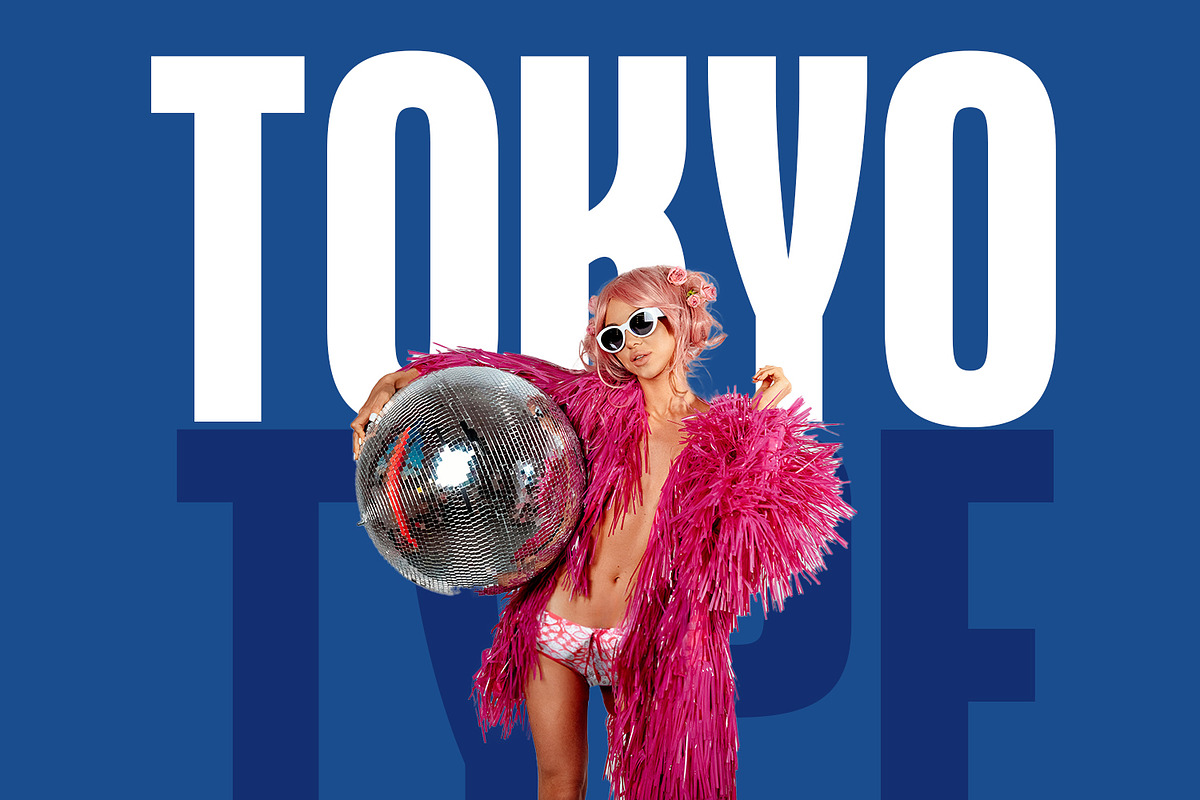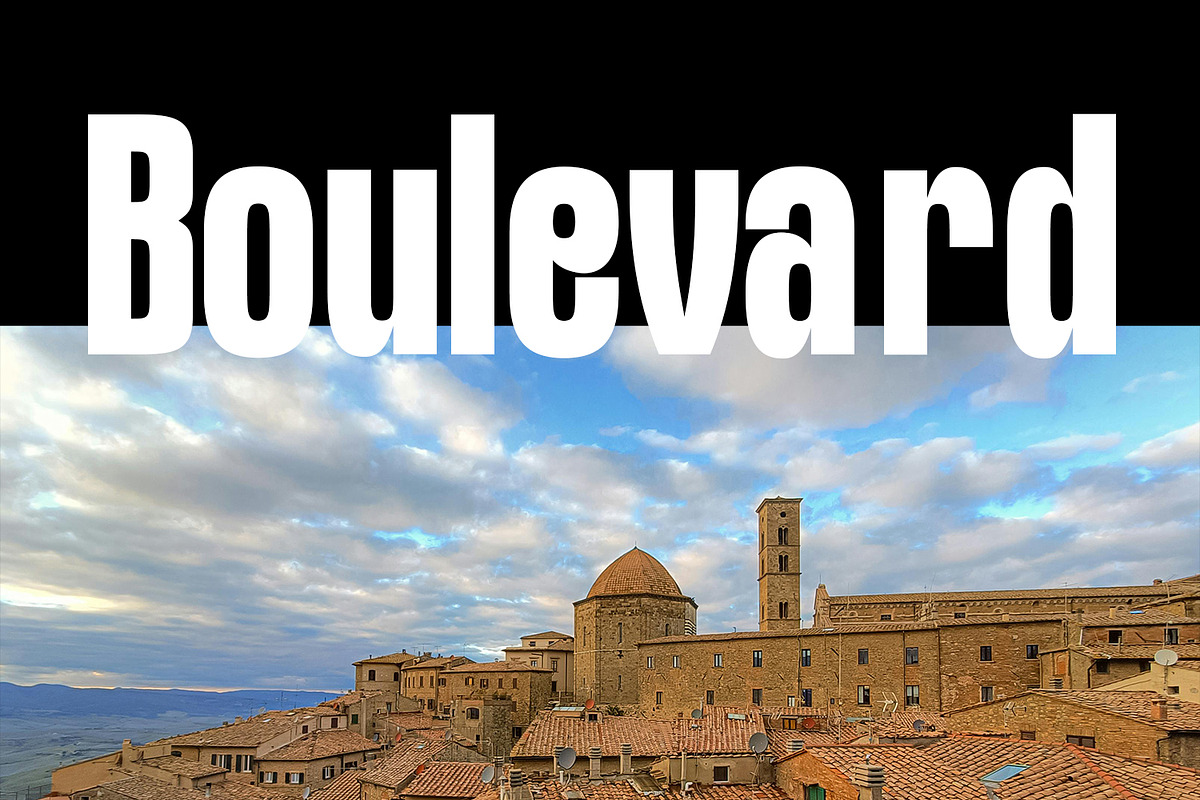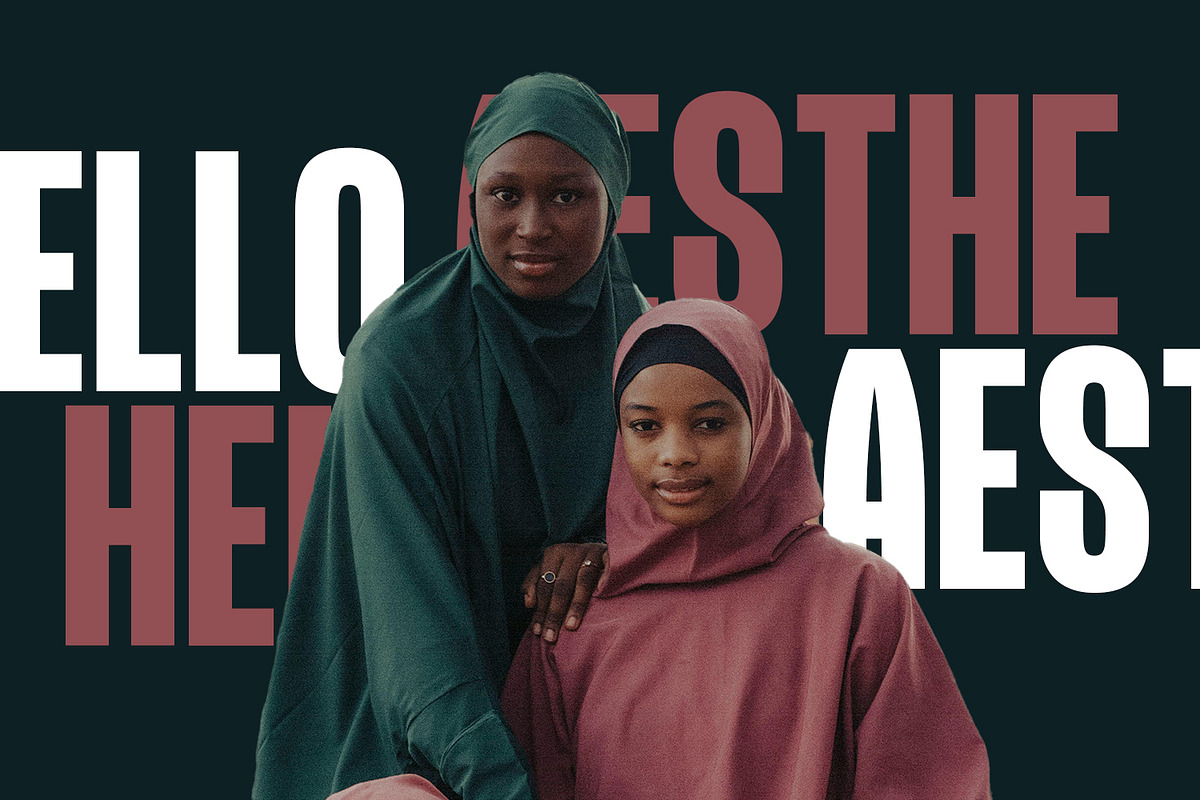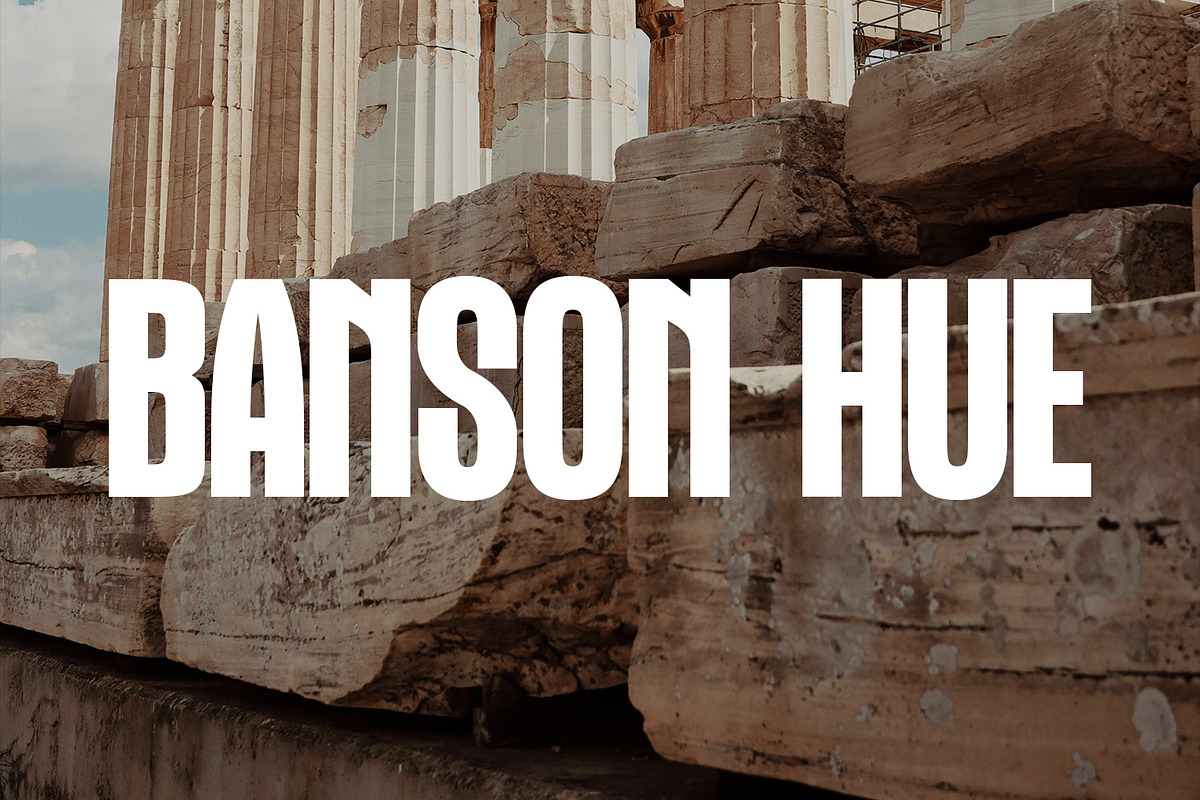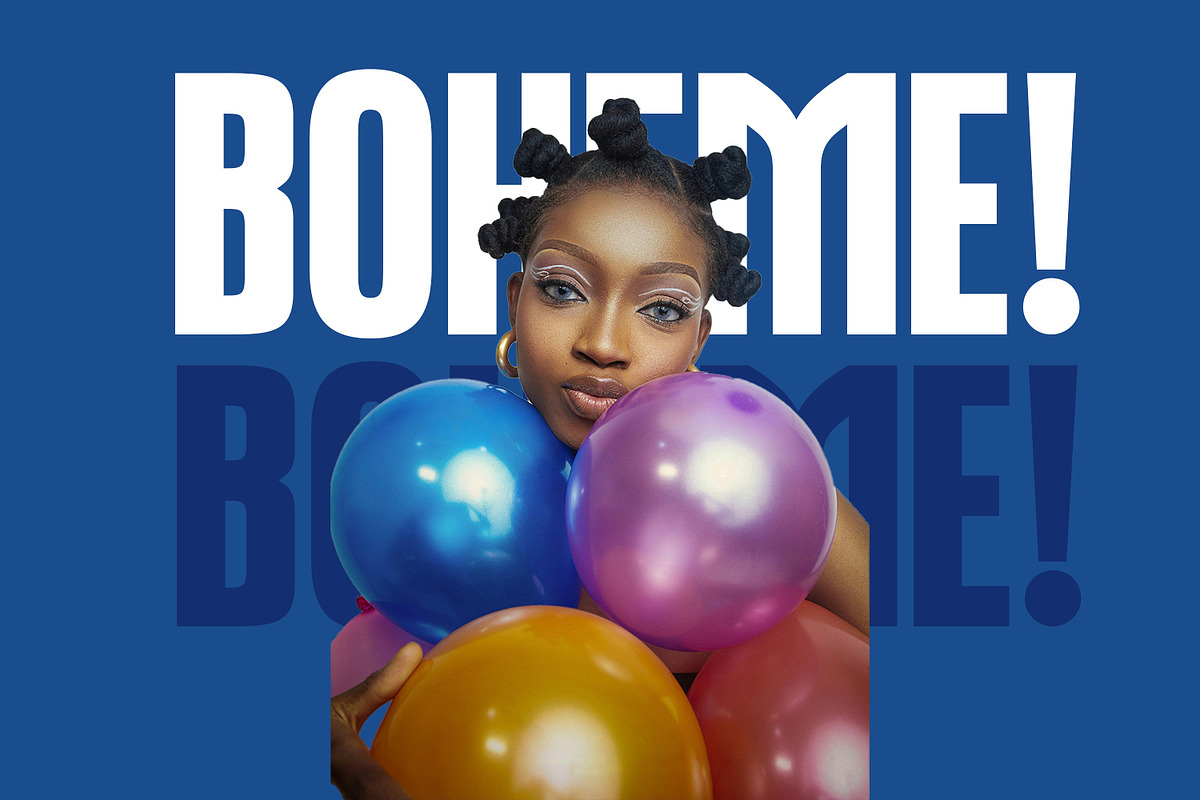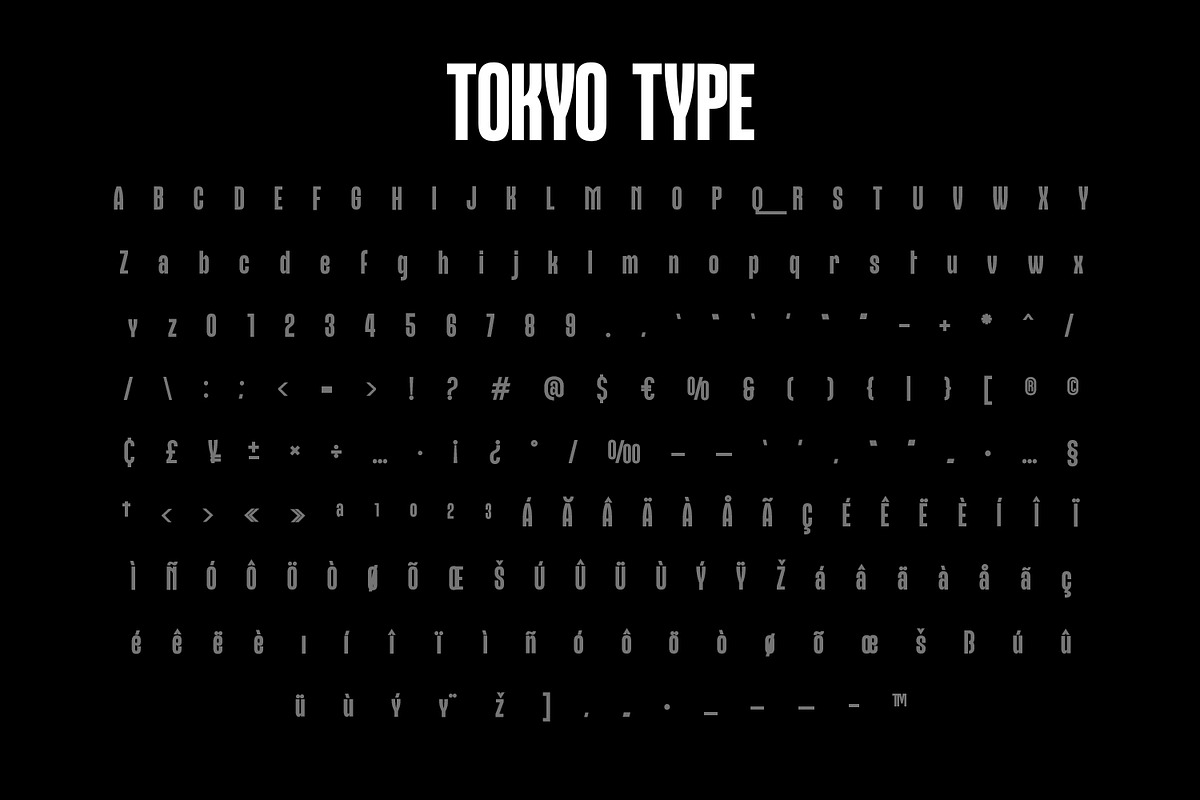
Tokyo Type
Tokyo Type – A Bold, Clean Typeface for Modern Design
Tokyo Type is a modern, precision-crafted typeface designed to make a statement. With its clean lines, sharp edges, and geometric elegance, this font brings a refined yet striking aesthetic to any project. It comes in 4 versatile weights, giving you full control over hierarchy and visual tone—whether you need something light and understated or bold and commanding.
Ideal for magazine covers, posters, headlines, branding, album art, and other high-impact display uses, Tokyo Type stands out with its strong presence while maintaining clarity and versatility. Whether you're creating minimalist layouts or bold editorial spreads, this font delivers professional, polished results every time.